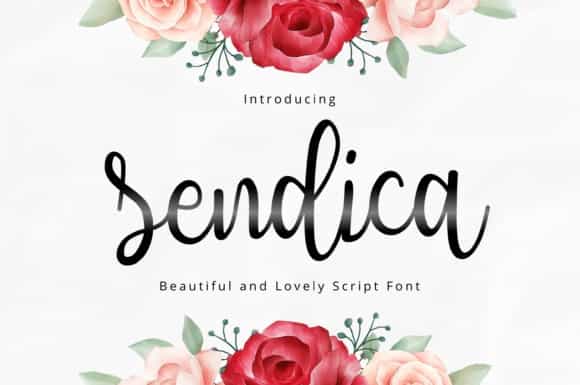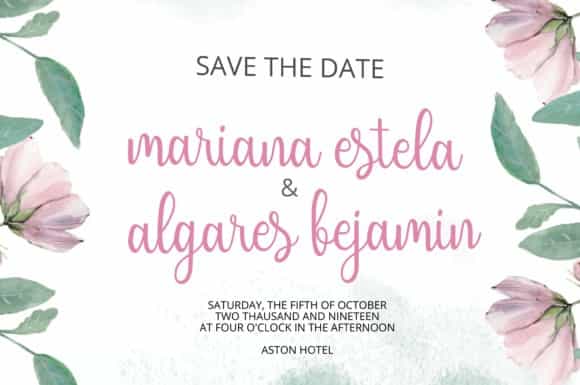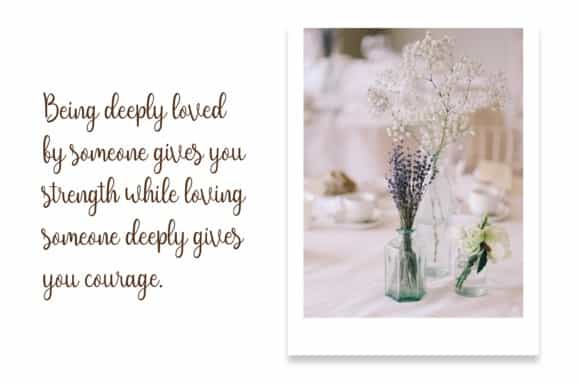
Sendica Font – a new modern & fresh calligraphy font with a lot of stylistic alternate makes this font look natural, elegant, and perfect for any awesome projects. Sendica is ideal for many different projects such as logos & branding, invitation, stationery, wedding designs, social media posts , advertisements , product packaging and design.